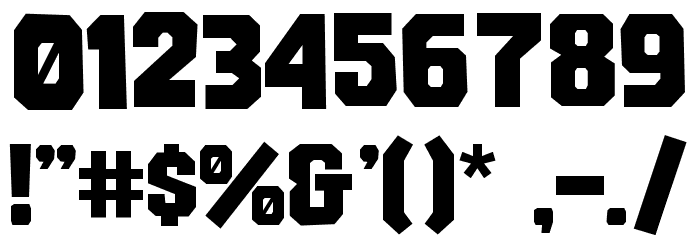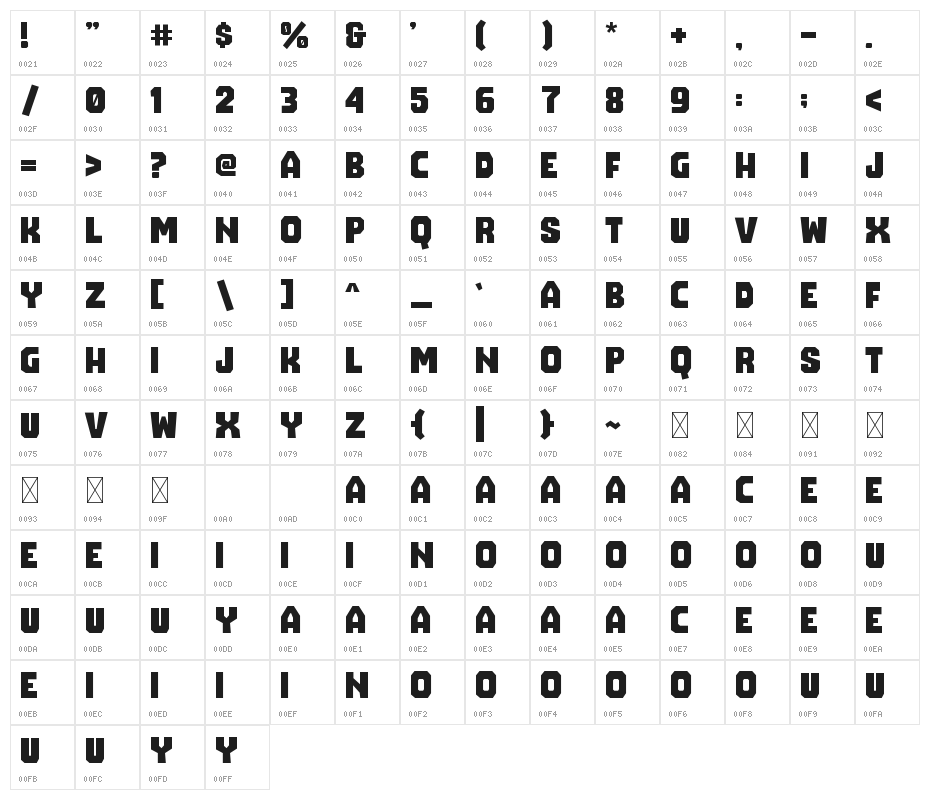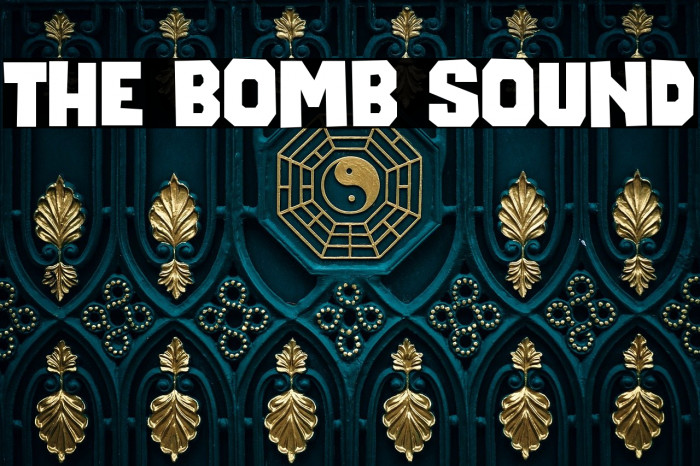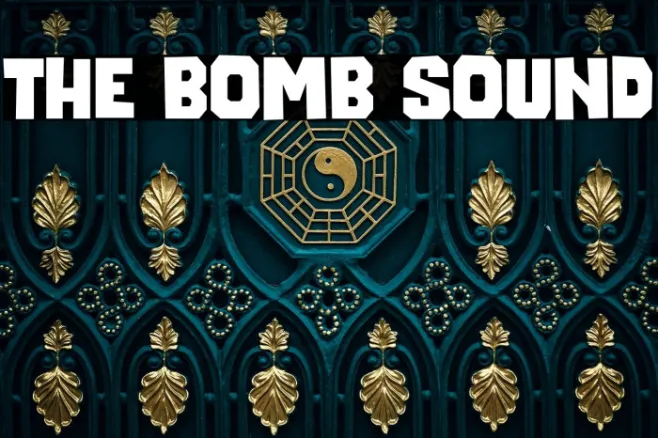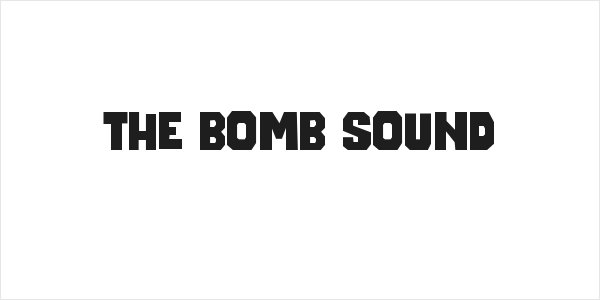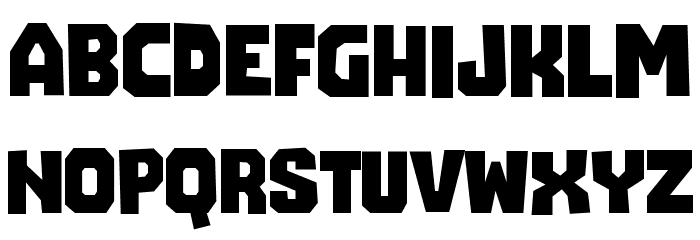
The Bomb Sound Font
The Bomb Sound Description
This bold and striking font features a strong, angular design with a distinctly modern and edgy feel. The characters are crafted with sharp, geometric lines and a blocky appearance, giving them a powerful presence. The uppercase letters are particularly dominant, with a uniform height and width that create a cohesive look. The numerals and special characters maintain this bold style, ensuring consistency across all elements. The font's design is ideal for making a statement, with its high-impact appearance drawing attention and conveying a sense of strength and confidence.
| Proposed Projects | Perfect for posters, headlines, branding, and any project requiring a strong visual impact. |